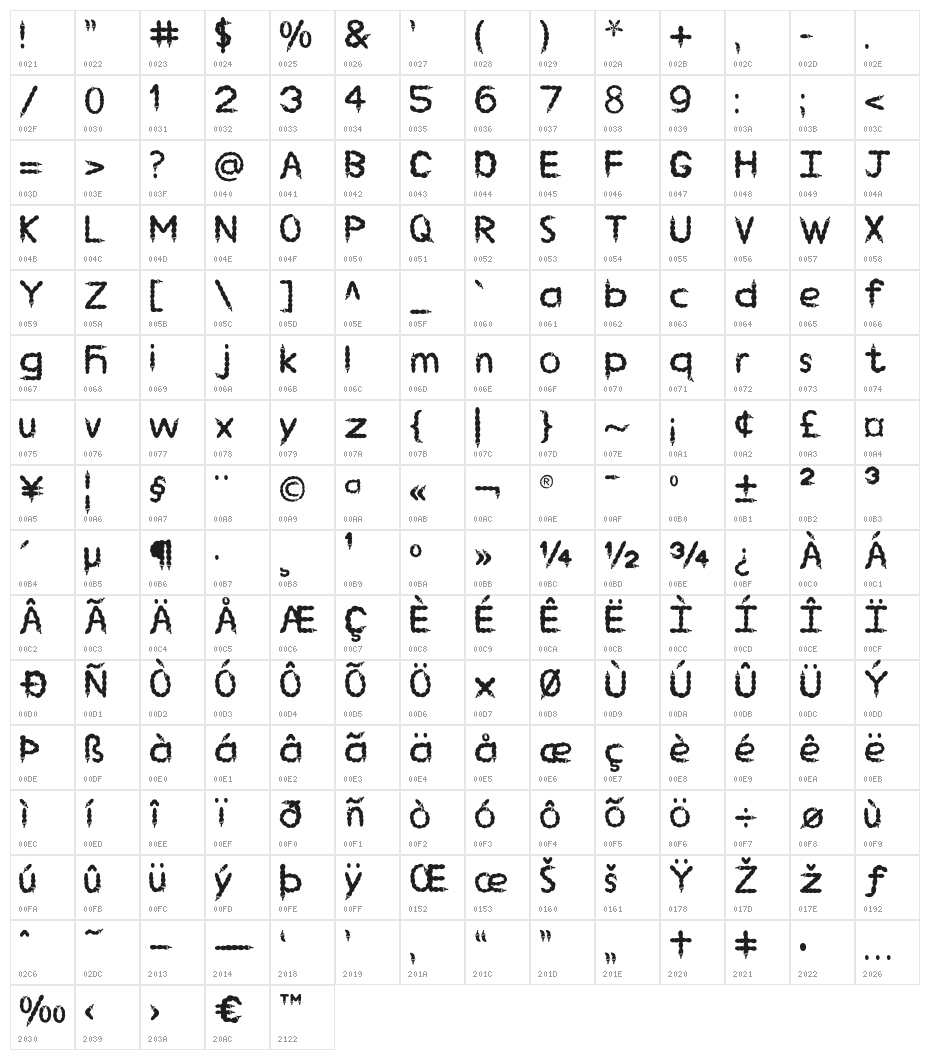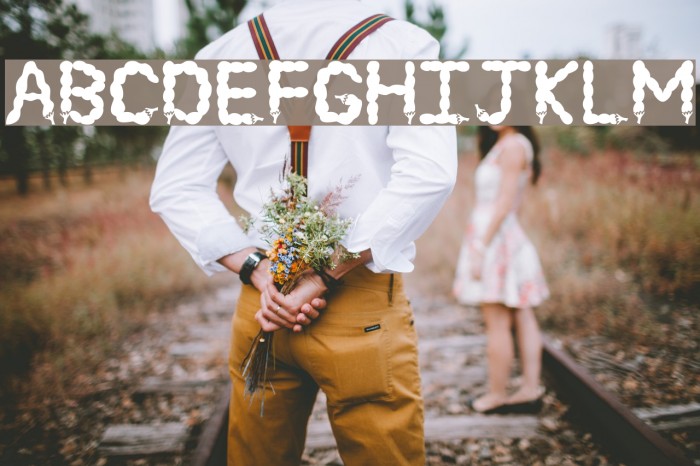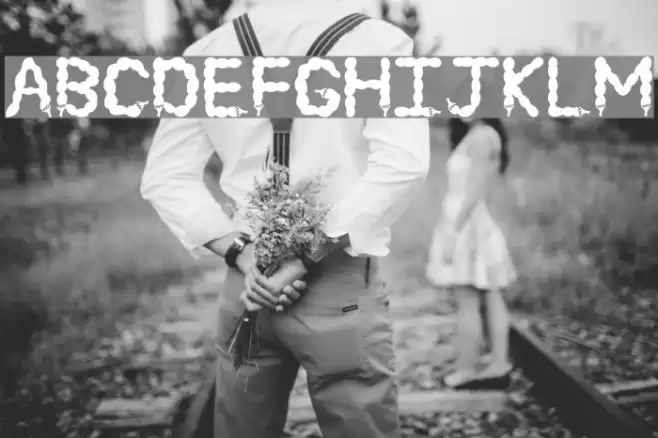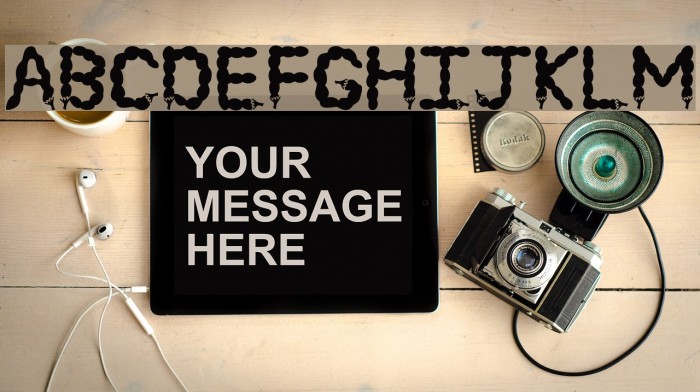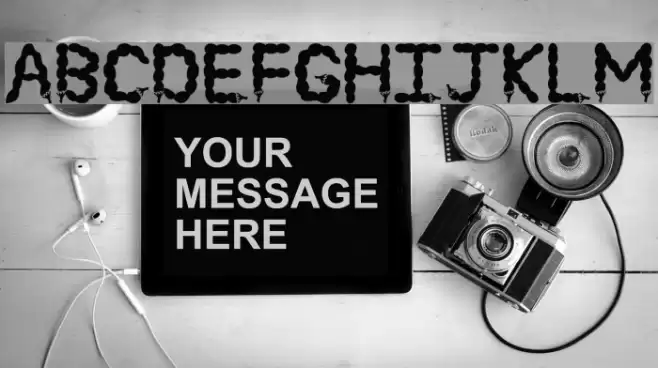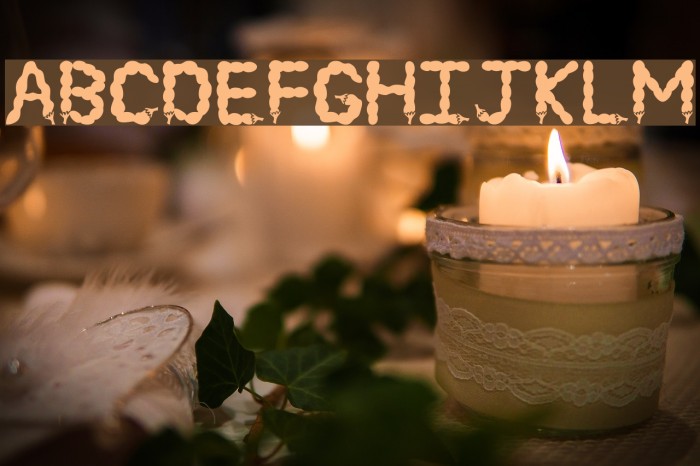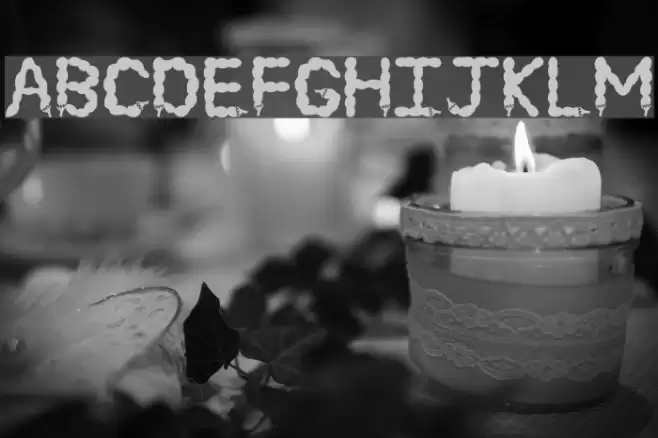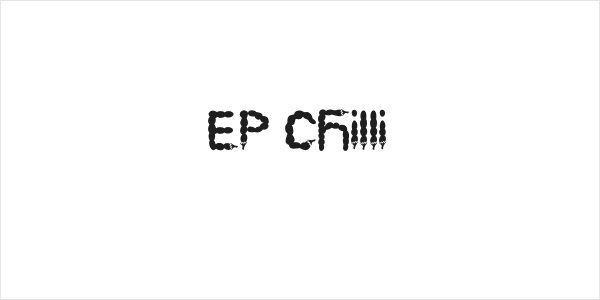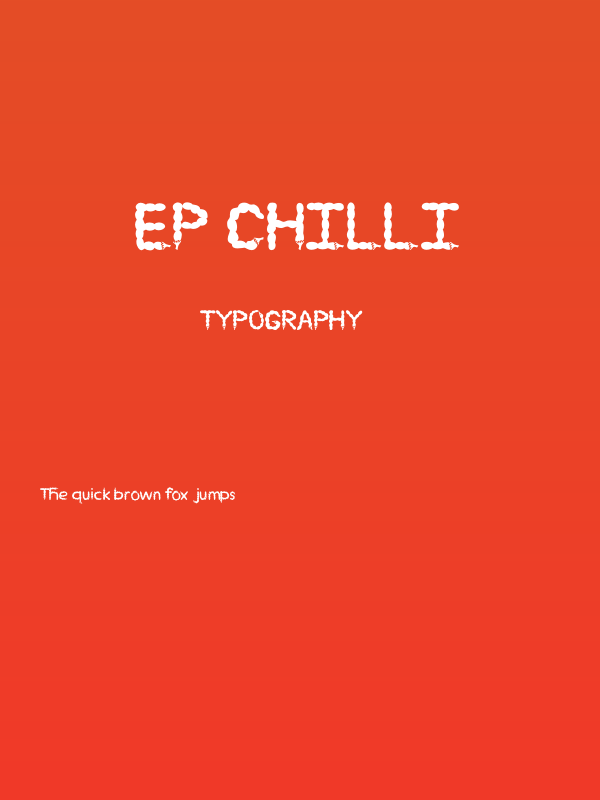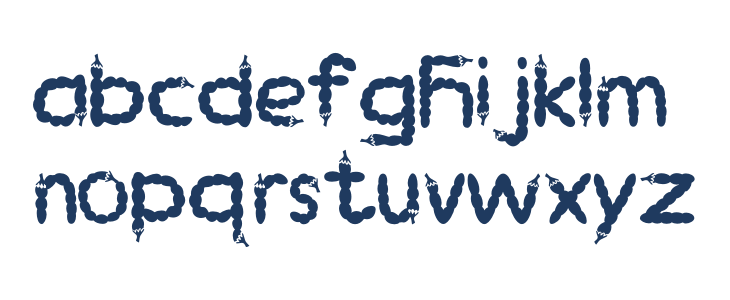
EP Chilli Font
EP Chilli Description
This font features a playful and bold design, with each character crafted to resemble a string of chili peppers. The letters are interconnected with a consistent, rounded form that gives a sense of continuity and flow. The unique style is both eye-catching and whimsical, making it ideal for creative and informal projects. The characters are evenly spaced, ensuring readability despite the decorative elements. The font includes a full set of uppercase and lowercase letters, numbers, and a variety of special characters, all maintaining the chili pepper motif. Its distinct appearance makes it suitable for projects that require a touch of fun and creativity.
| Proposed Projects | Ideal for food-related branding, playful posters, children's book covers, and festive event invitations. |